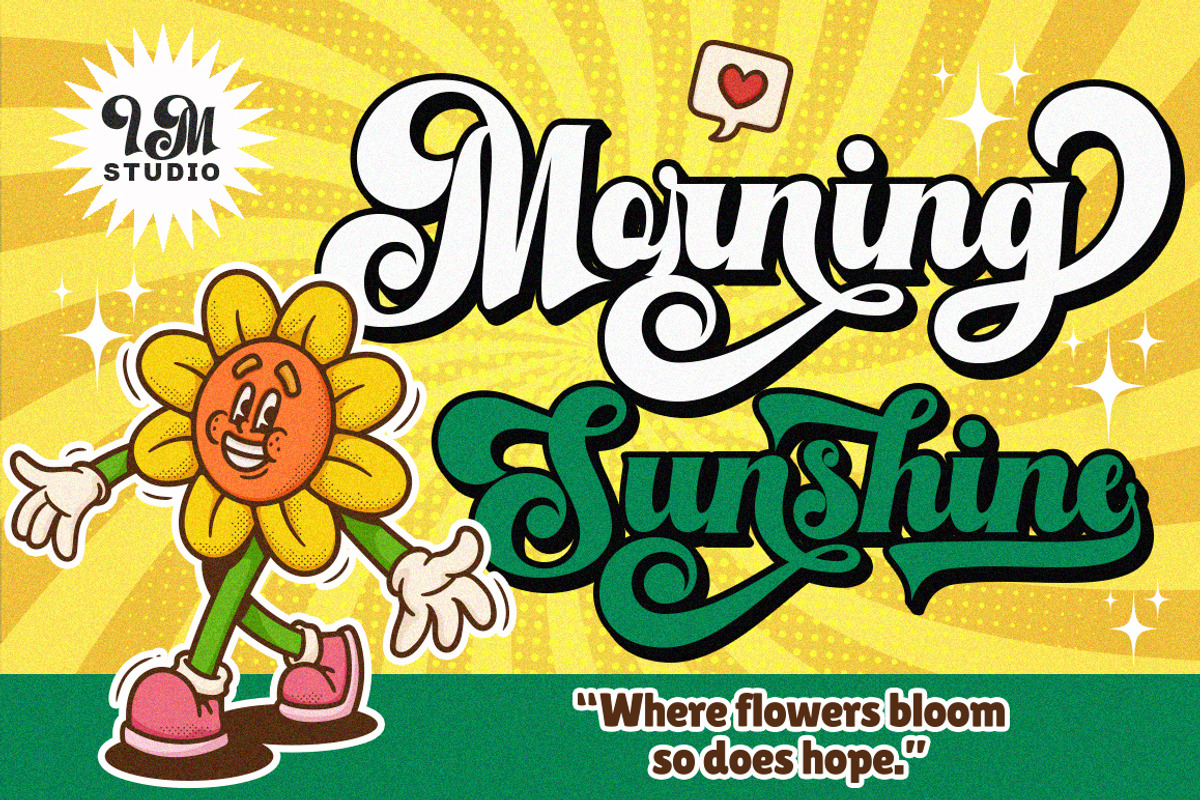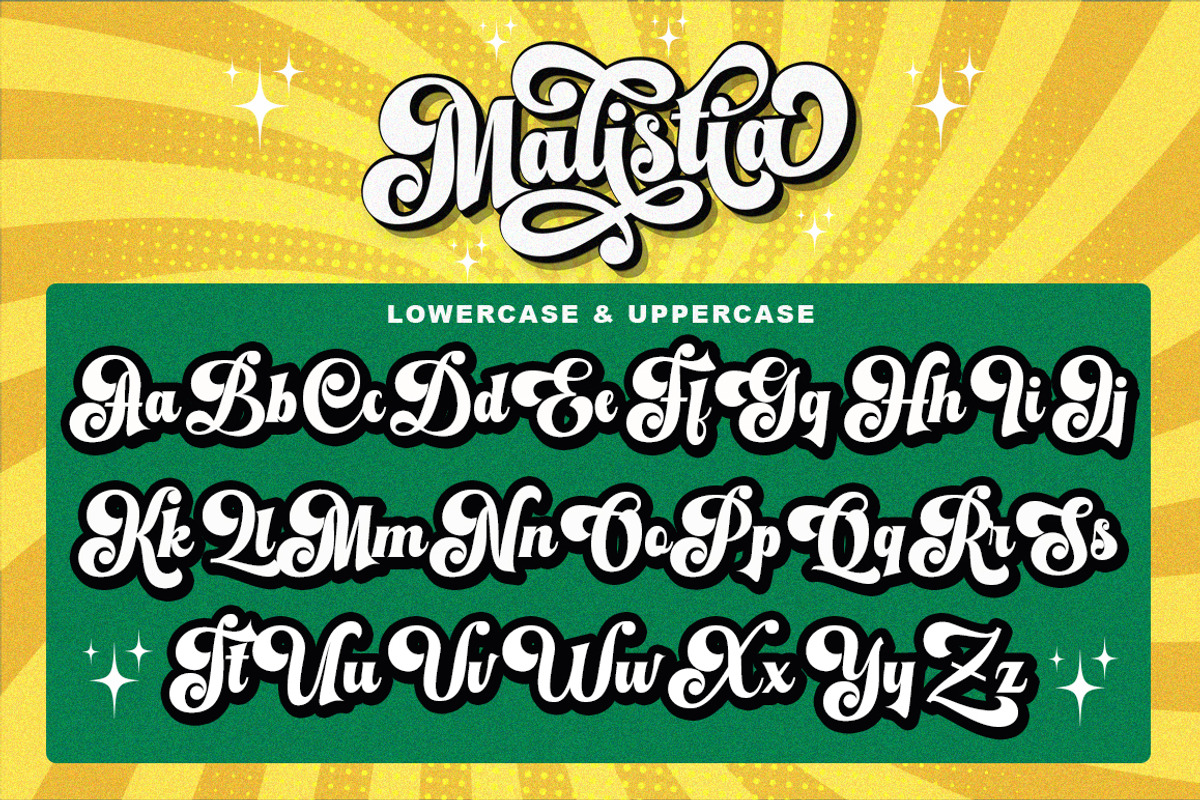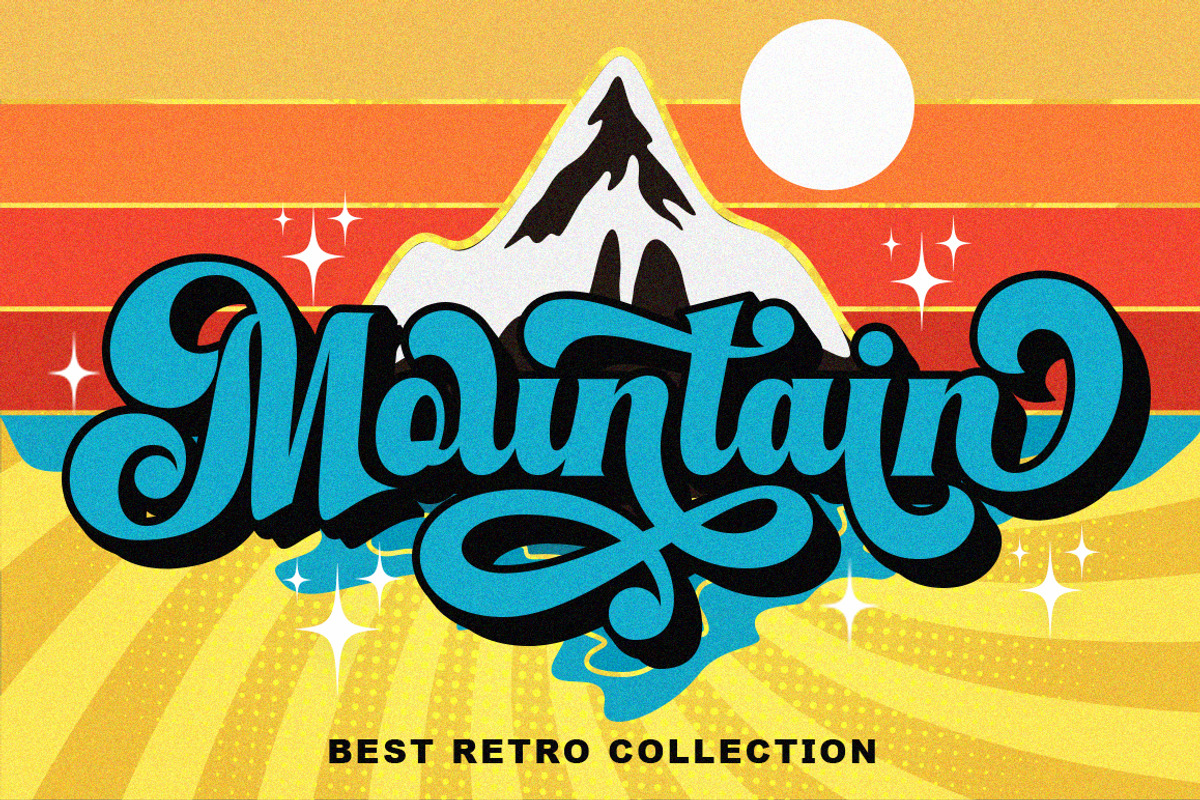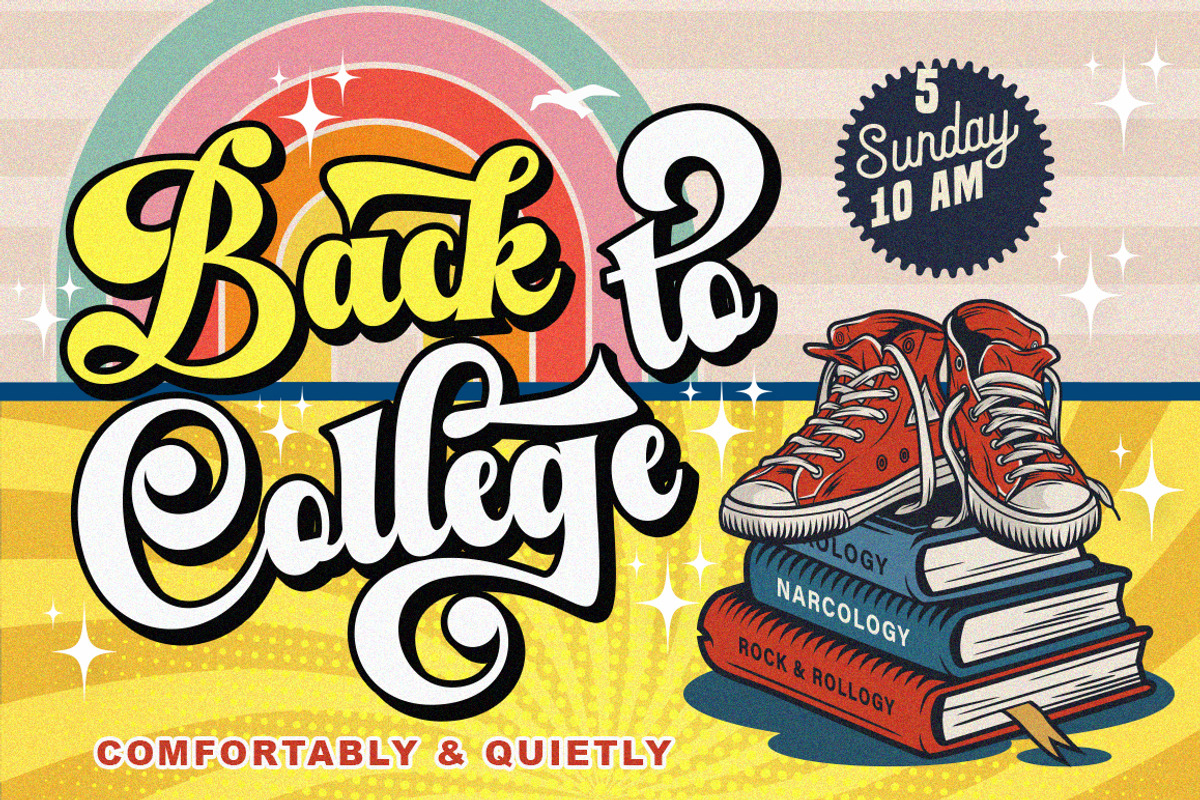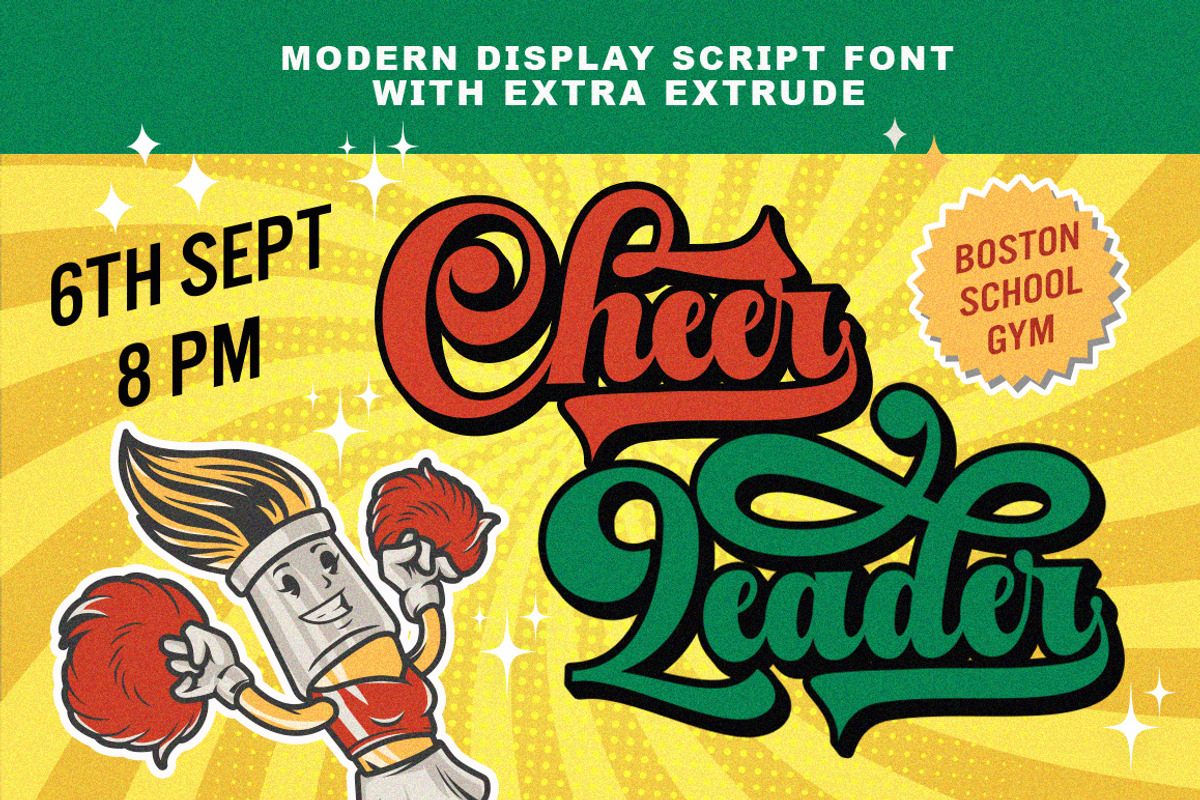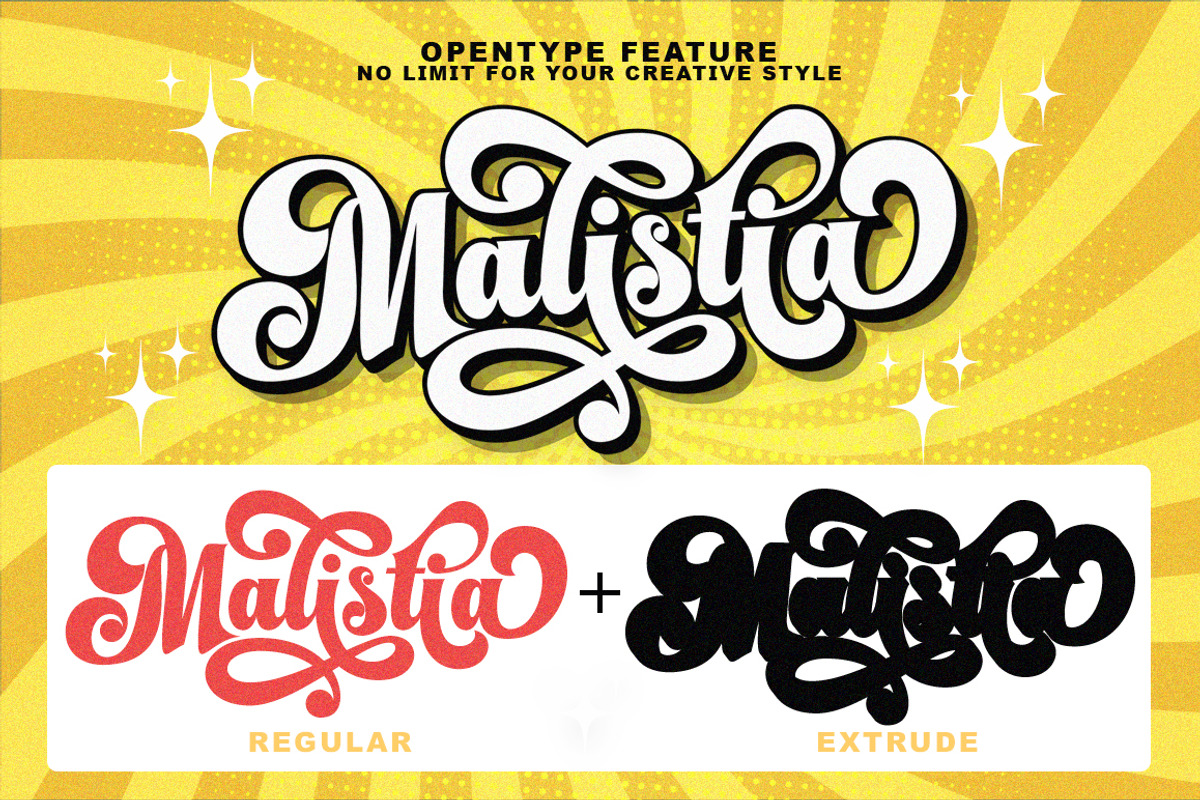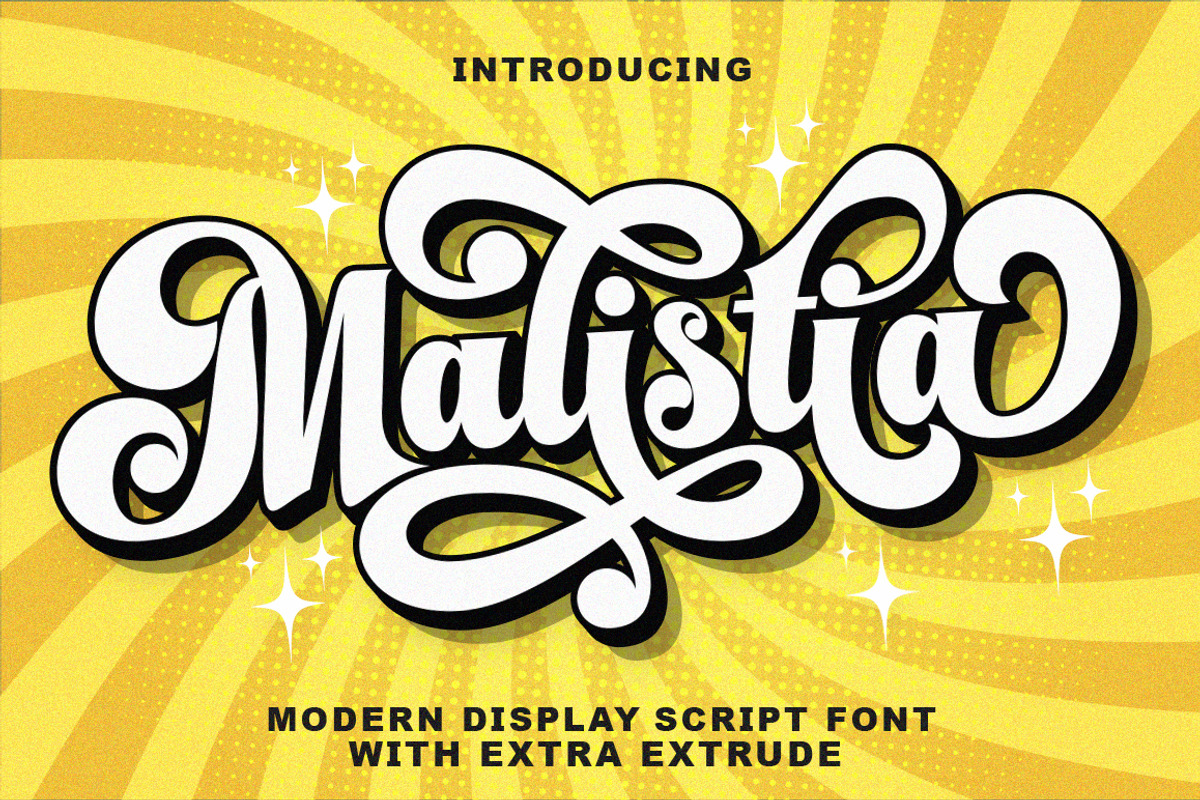
Malistia (Regular + Exrude)
Introducing Malistia — a bold, retro-inspired font that transports you straight to the swinging ’60s! This eye-catching typeface comes with an extruded version, making it easy to create striking retro effects in just a few clicks.
Malistia is designed to shine on logos, invitations, labels, magazines, books, greeting cards, wedding stationery, packaging, fashion branding, makeup products, novels, and a wide range of advertising materials. Its nostalgic charm pairs beautifully with both vintage and modern layouts.
Uppercase & lowercase letters
Ligatures & alternate characters
Stylish swashes